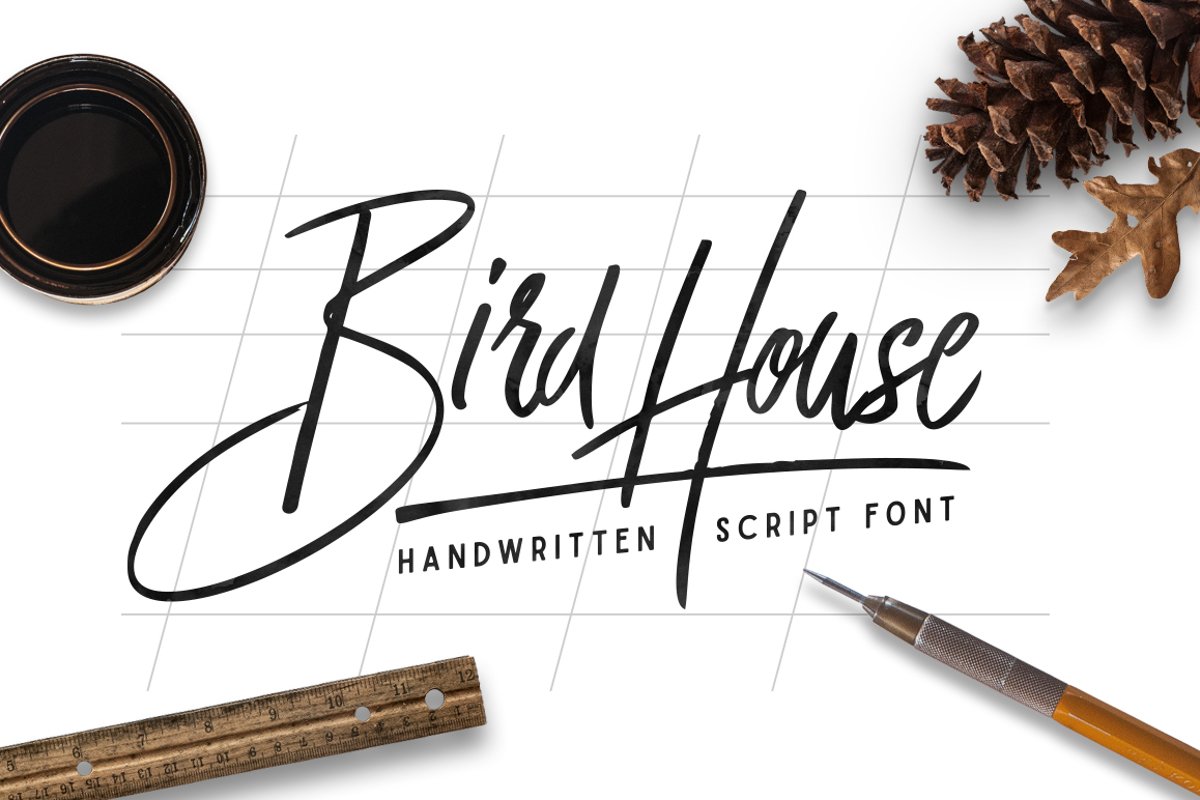
Bird House Script
Bird House Script is a handwritten font designed using markers. This font perfect for branding, signature, and more. It includes uppercase standard character, punctuation and multiple language support.